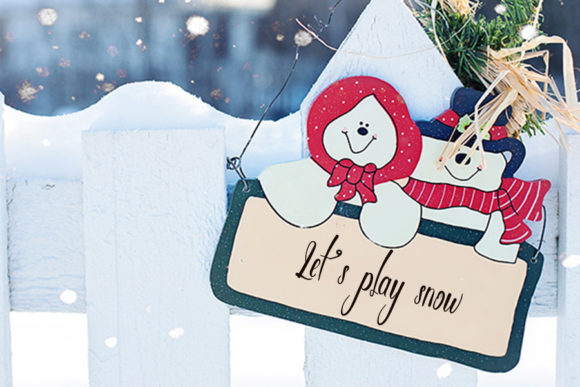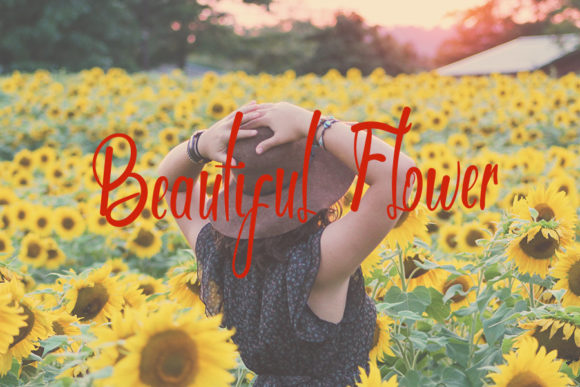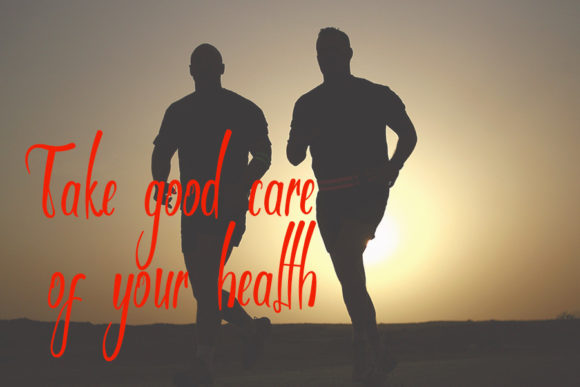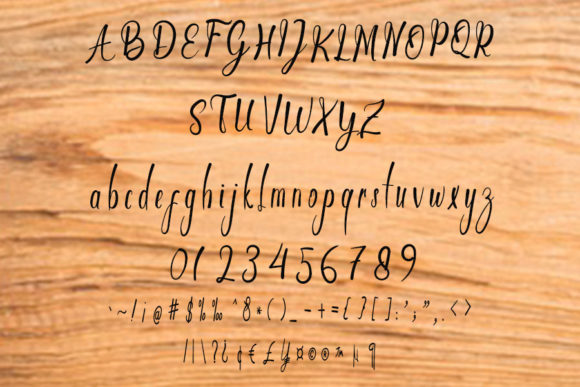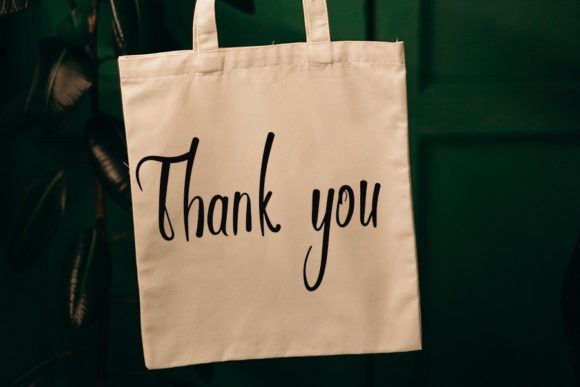
Sunshine Font
About Sunshine Font
Sunshine is a cool handwritten font with a modern vibe and spotless form, inspired by a classic calligraphy. Not too thin and not too thick, balanced and varied, this font was designed to enhance the beauty of your projects.